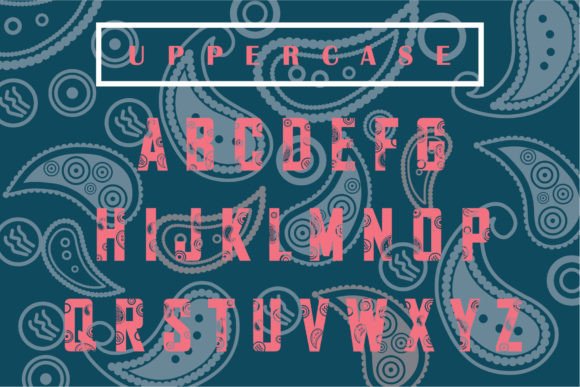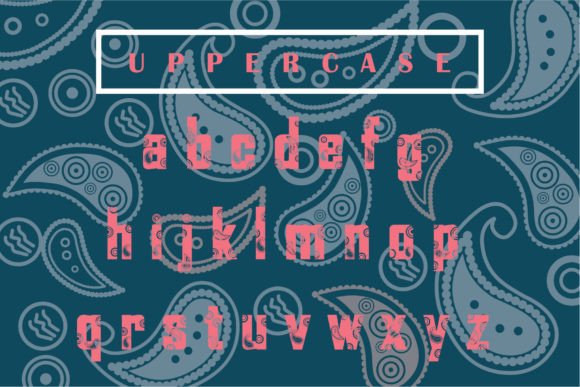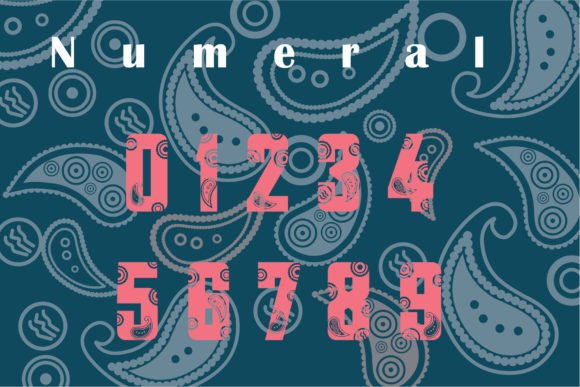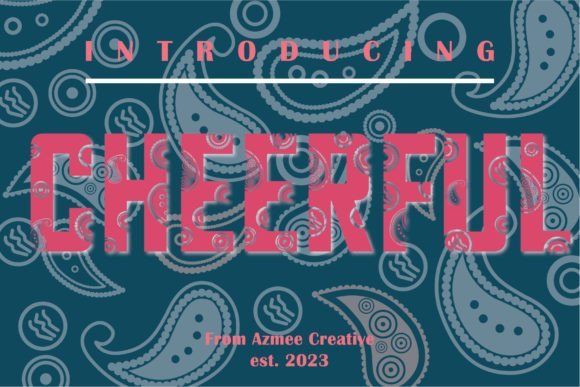
Introduction to Cheerful Display Font
Cheerful is a stylish and eye-catching typeface designed for use in headlines, titles, and other short bursts of text.
With its bold lines, elegant curves, and unique character shapes, it adds a touch of sophistication to any design project Perfect for advertising, branding, and print design, this font will make your message stand out.